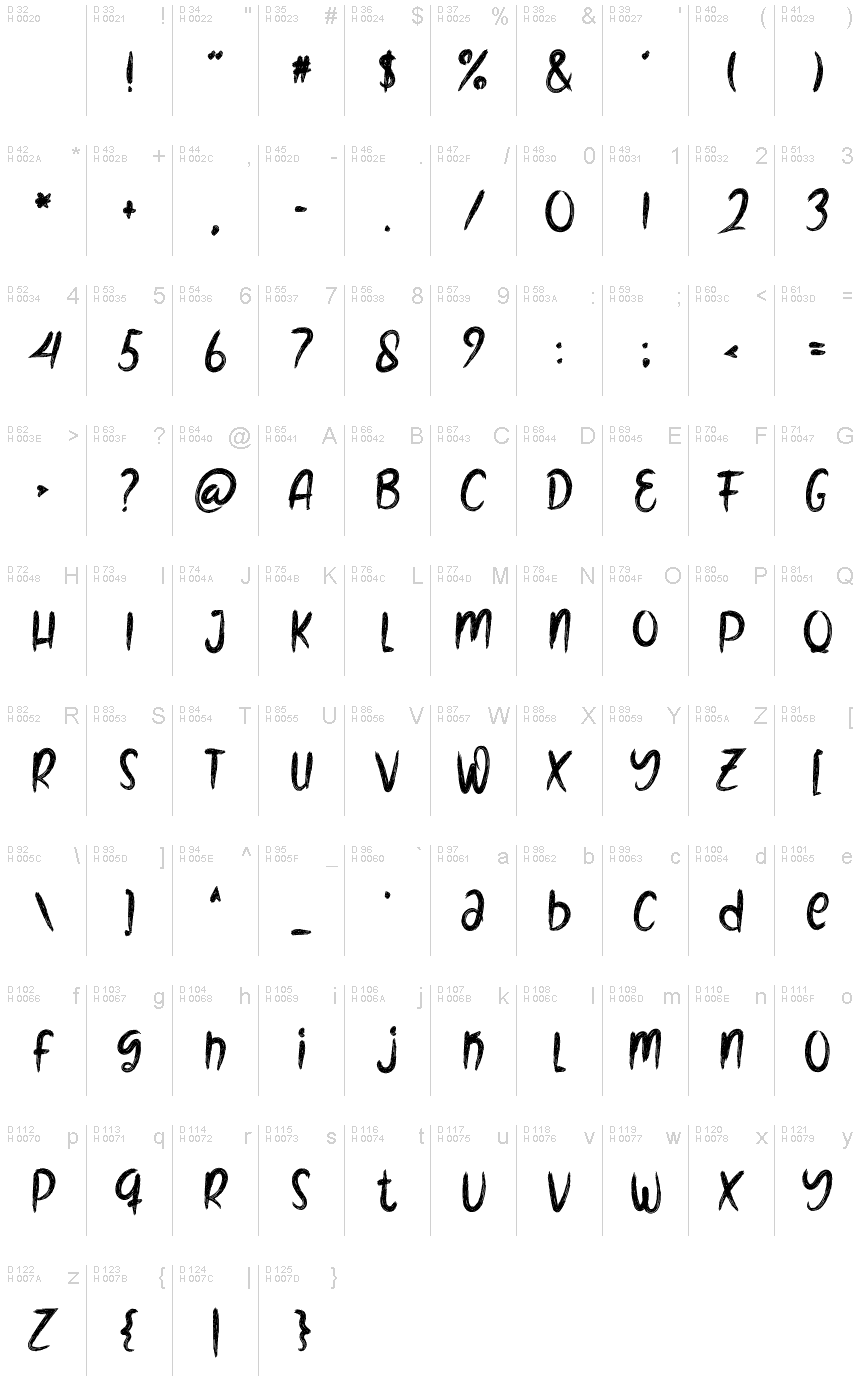
HalloWeen Vintage
HalloWeen Vintage, designed by Etik Fatimah, is a charming brush font that adds a touch of sweetness and friendliness to any project.
With its fresh and casual style, this font is perfect for creating captivating wedding invitations that capture the essence of romance and celebration. Its handwritten aesthetic also makes it great for crafting heartfelt greeting cards that convey warmth and sincerity.
Moreover, HalloWeen Vintage's lovely touch lends itself well to designing custom logos or branding materials that evoke a sense of nostalgia or vintage charm. Let your creativity run wild with this versatile font!